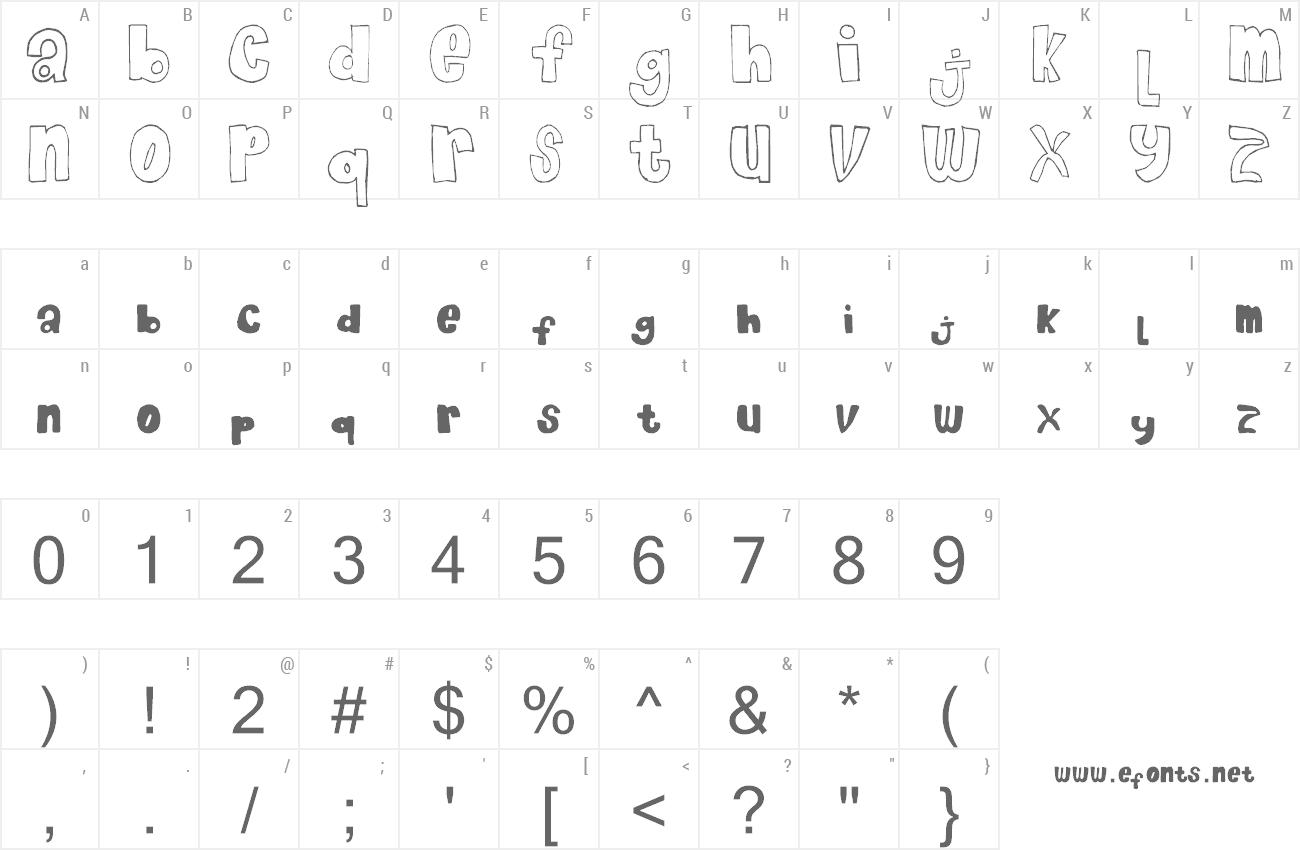
| Font name: | Chocolate Muffin |
| Author: | The Space Wanderer |
| Note by The Space Wanderer | |
i love this font verymuch. designed for a cakehouse or something like that |